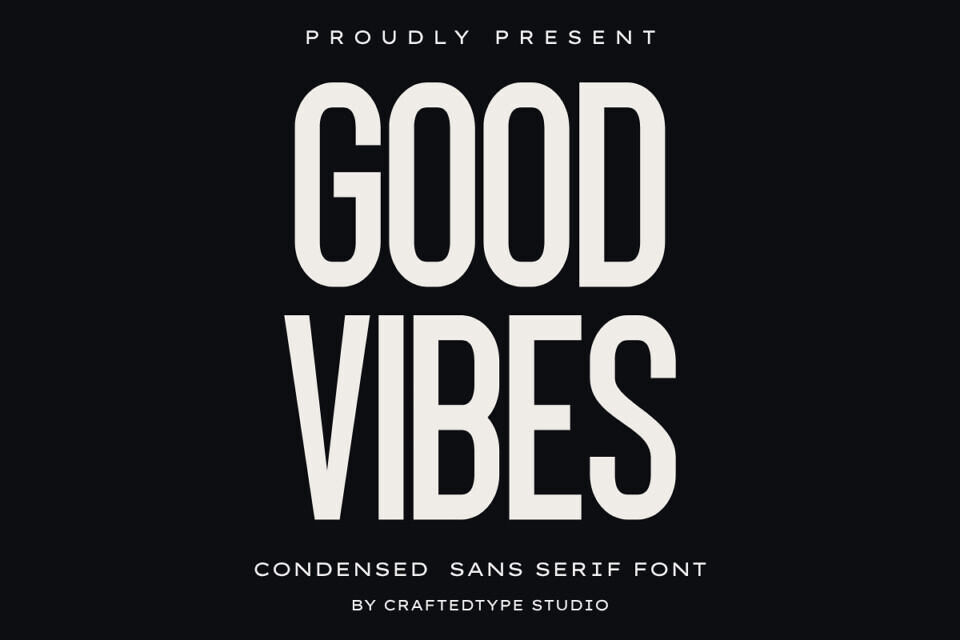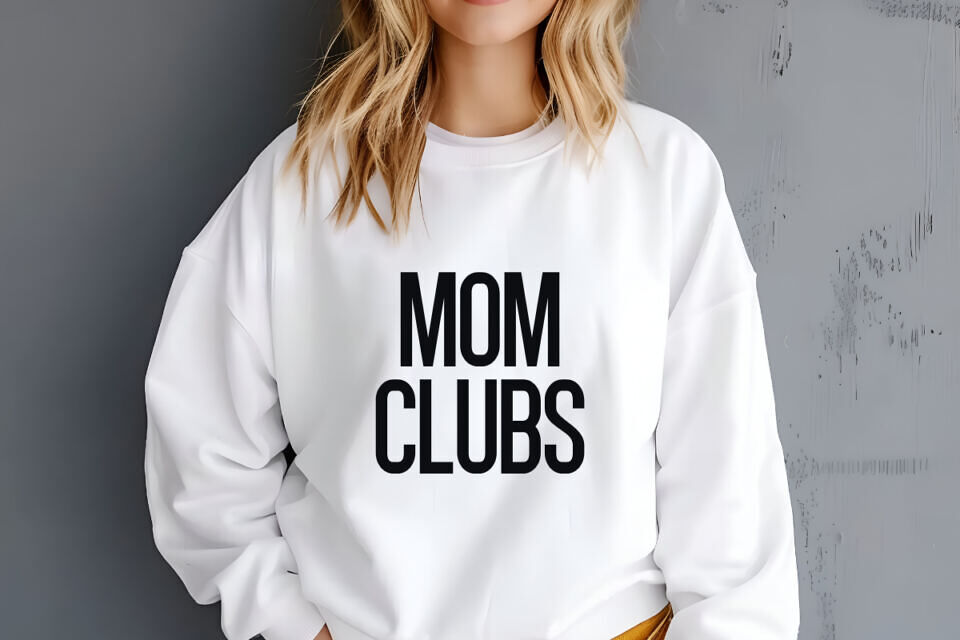
Good Vibes is a sleek and stylish condensed sans serif font designed for creators who value clean aesthetics and strong visual impact. With its tall, narrow letterforms and elegant spacing, this font is perfect for Print On Demand projects like t-shirts, posters, mugs, and tote bags, as well as for film titles, branding, logos, and modern packaging.